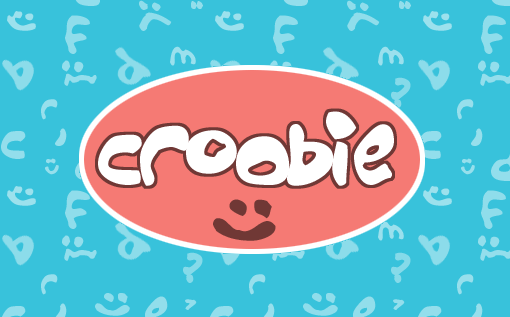
Croobie
Croobie is not only a cool font, but it is one of the coolest words in the universe. Say it with your friends, "Croo-bie, croo-bie!" When I type with it, I find myself chanting it until someone peeks their head in my room. This set has a bunch of international characters too and four different smiley faces. .